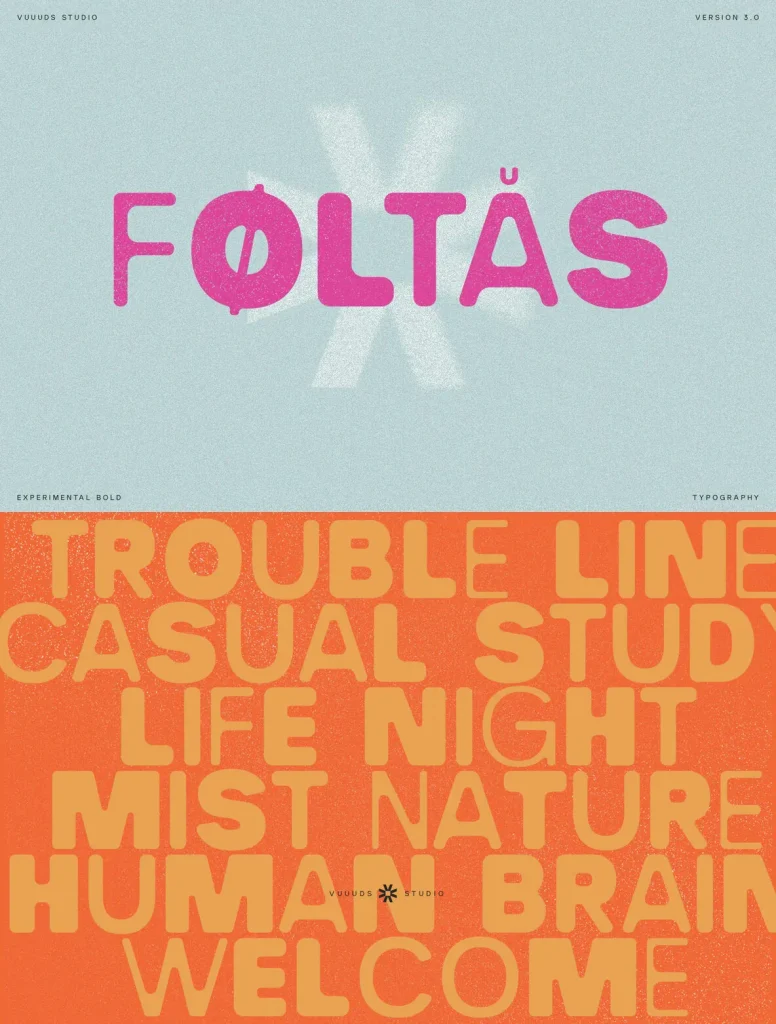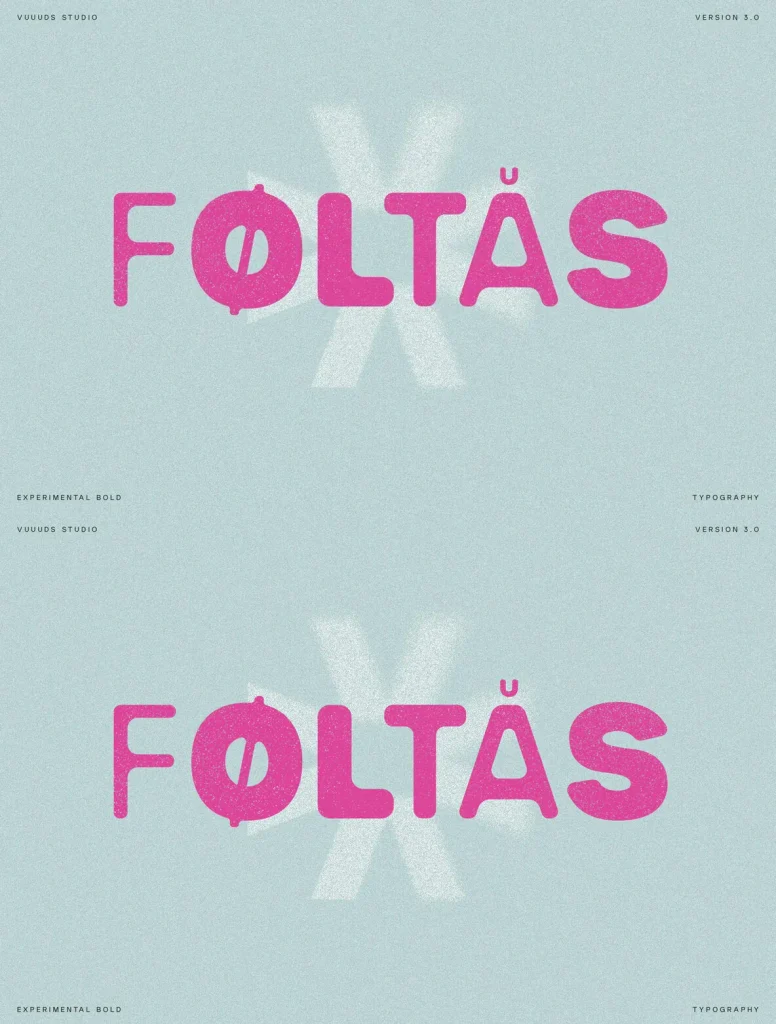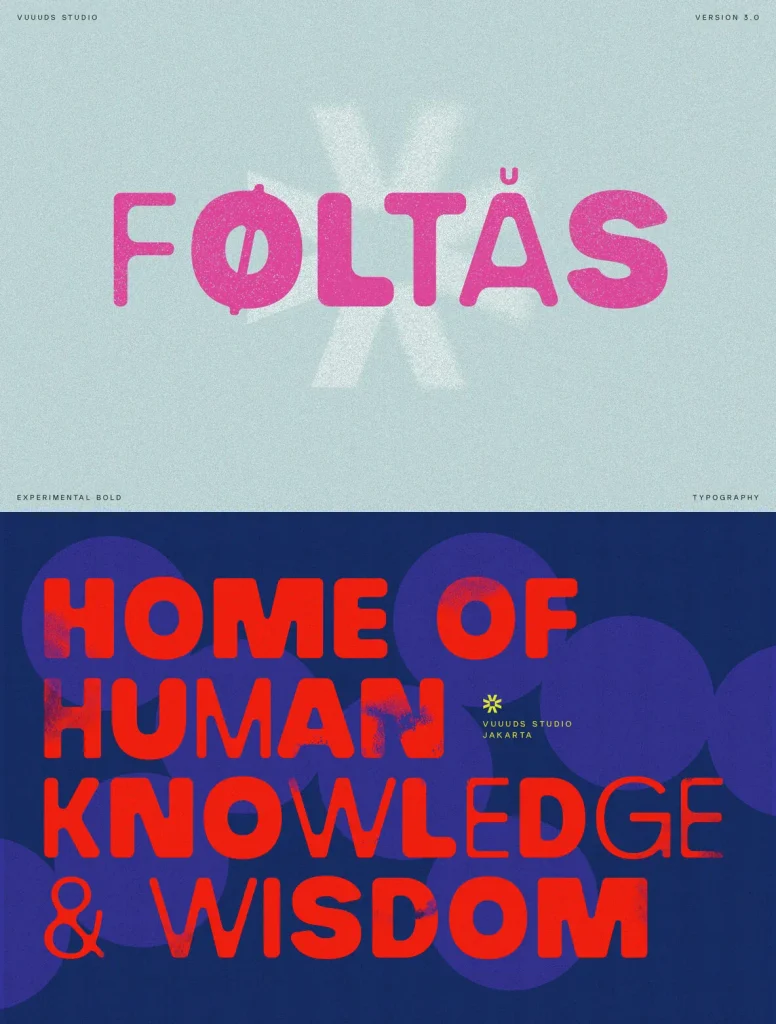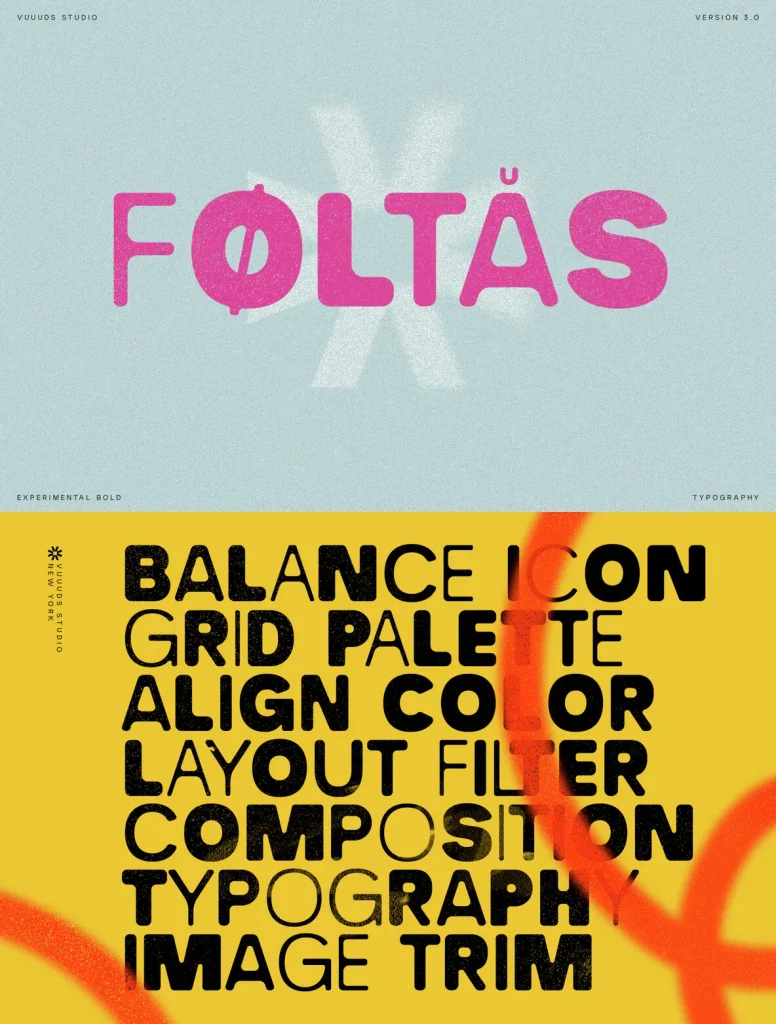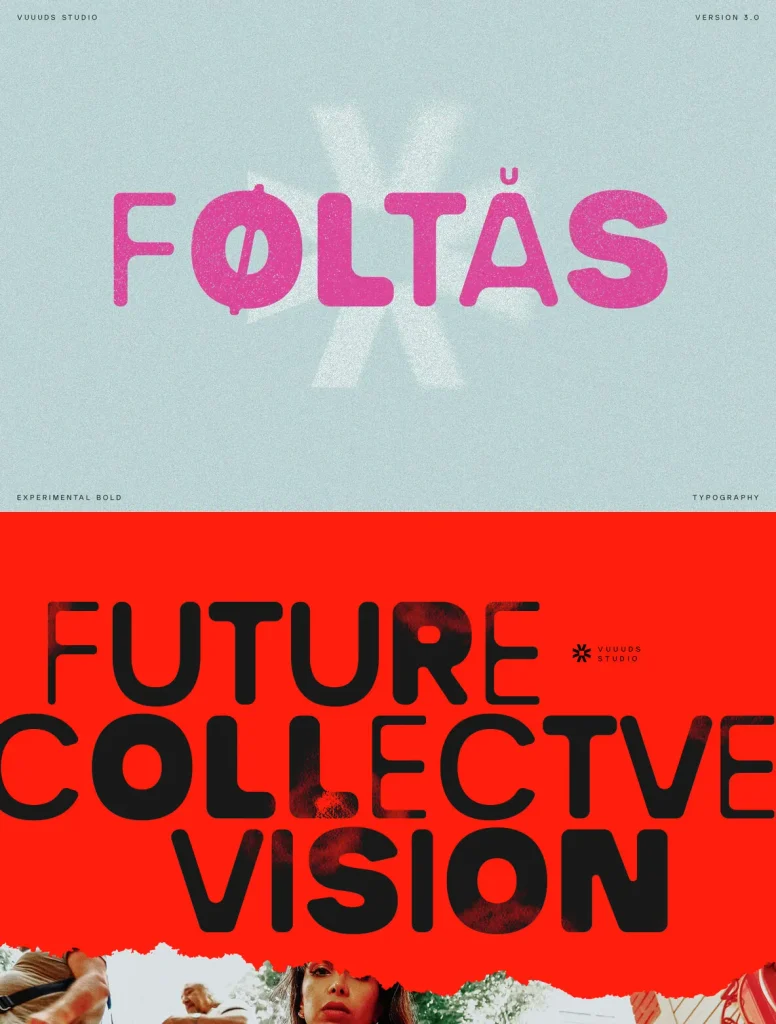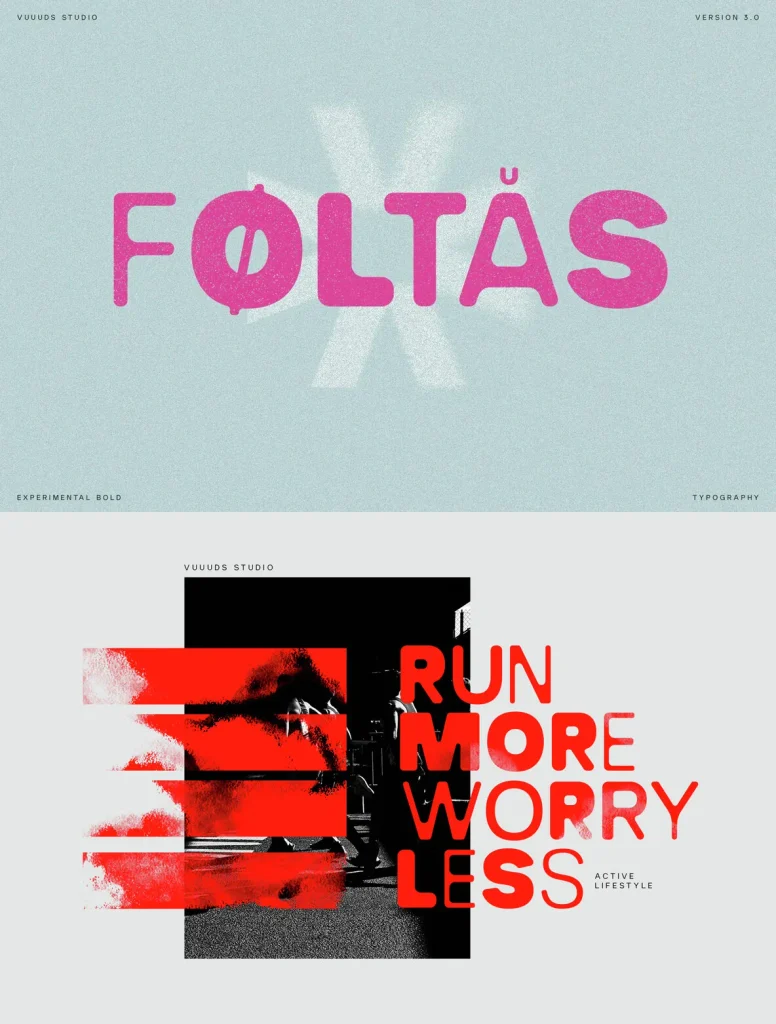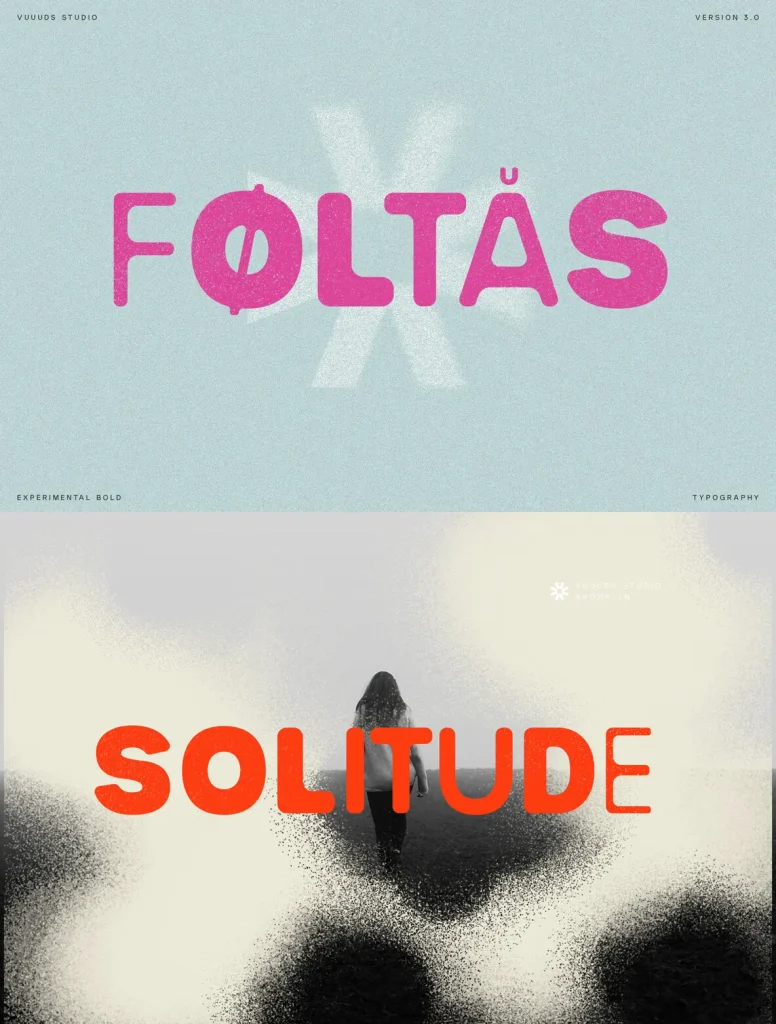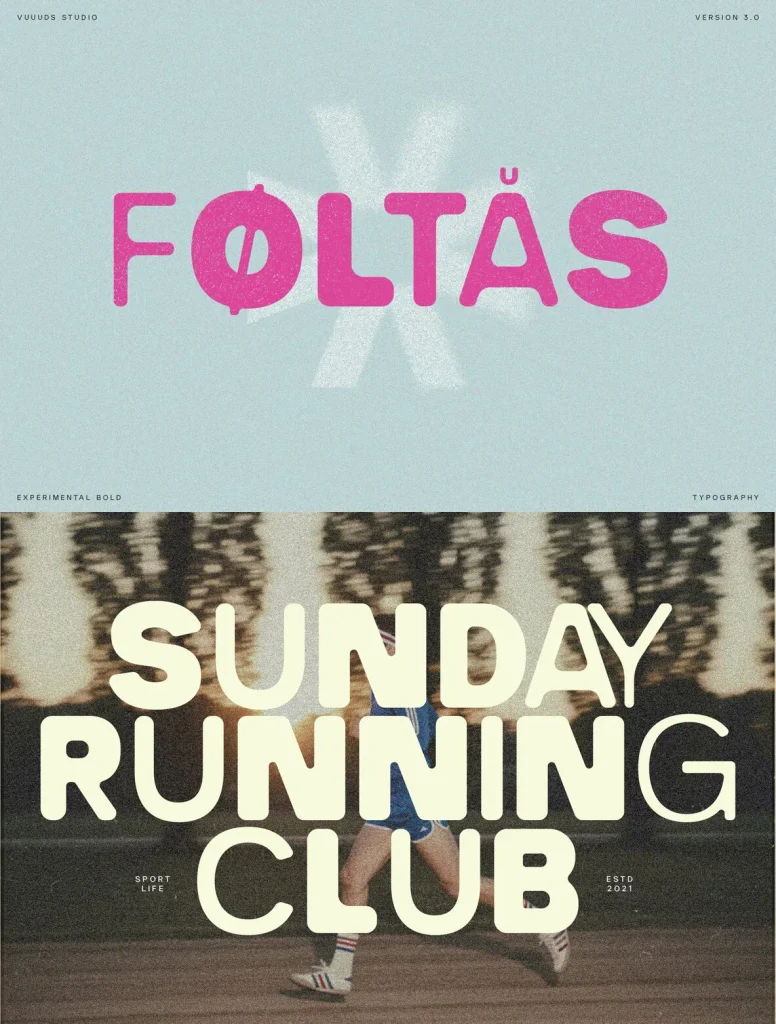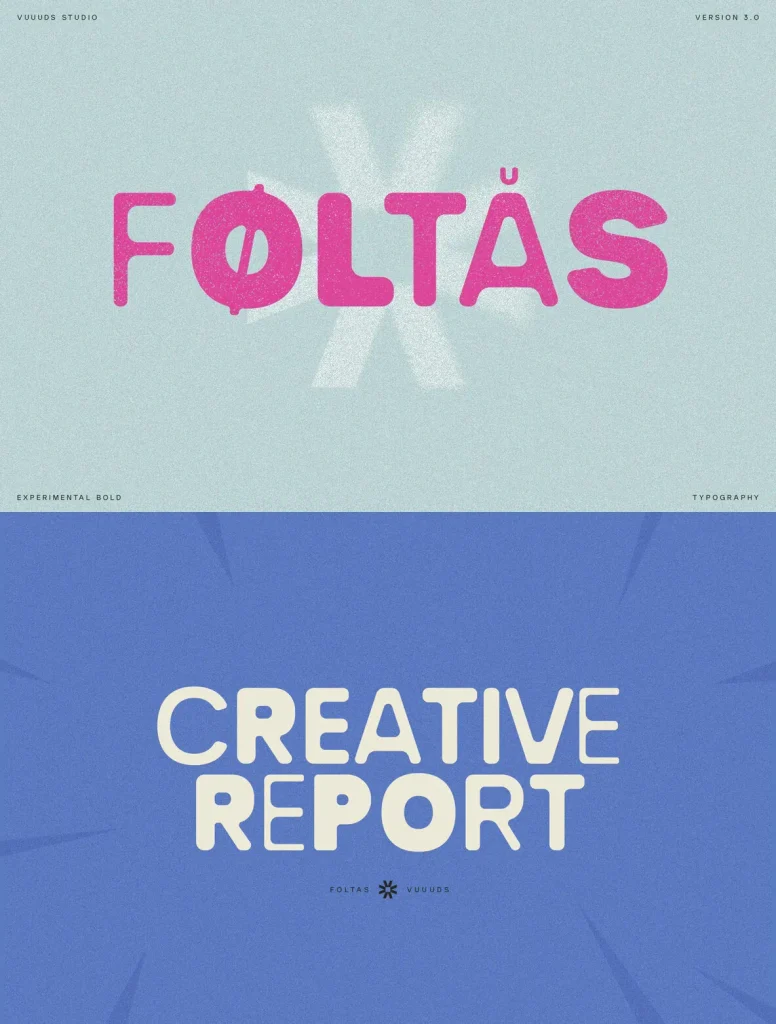
Typeface with Rounded Corners and Varied Stroke Weight
This typeface balances playfulness with professionalism through its soft, rounded corners and distinctive randomized stroke weight variation. The subtle irregularities evoke a handmade quality, lending warmth and approachability to its appearance.
Its versatility suits a range of applications, including expressive posters, memorable logos, and brand identities that benefit from a personable touch.
Multilingual Support
Includes extended Latin characters such as À Á Â Ã Ä Å Ă Æ Ç È É Ê Ë Ì Í Î Ï Ð Ñ Ò Ó Ô Õ Ö Ø Ù Ú Û Ü Ý Ÿ
Supports lowercase accented characters à á â ã ä å ă æ ç è é ê ë ì í î ï ð ñ ò ó ô õ ö ø ù ú û ü ý ÿ
Additional symbols: Ț ț Ș ș ß €, £, ¥, ©, ®, ™